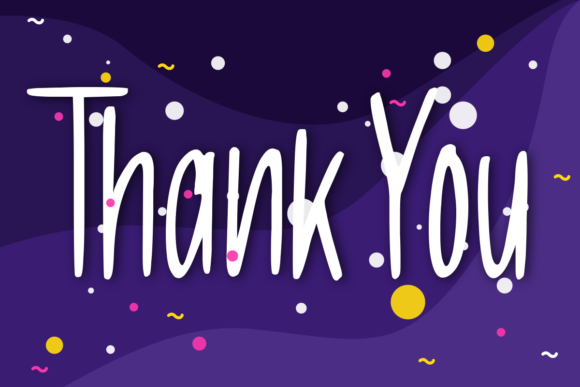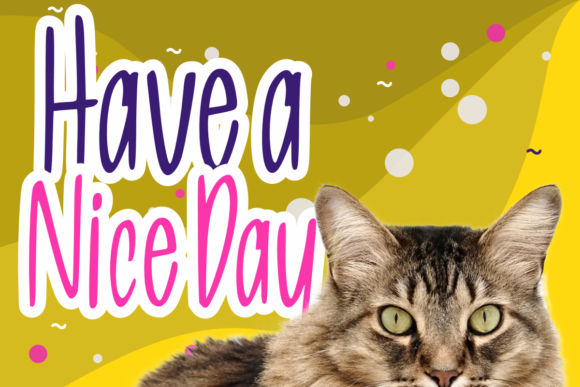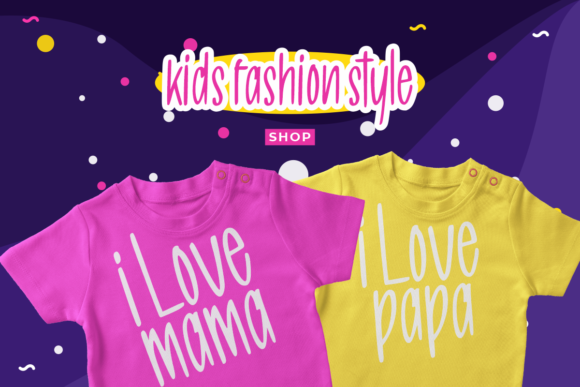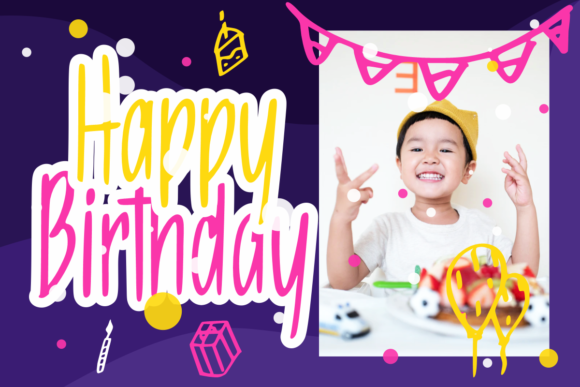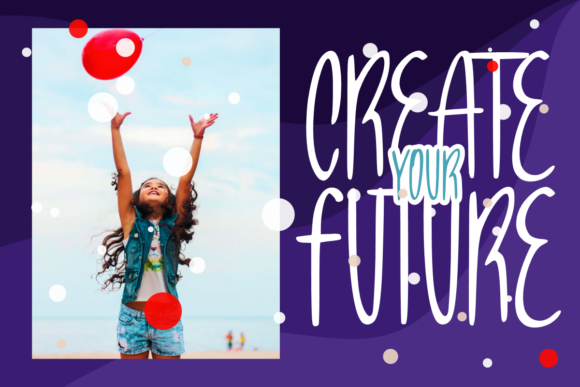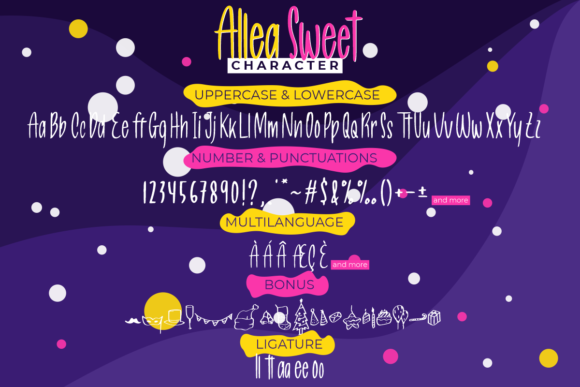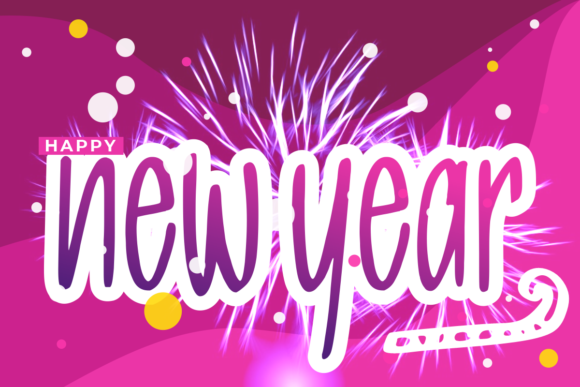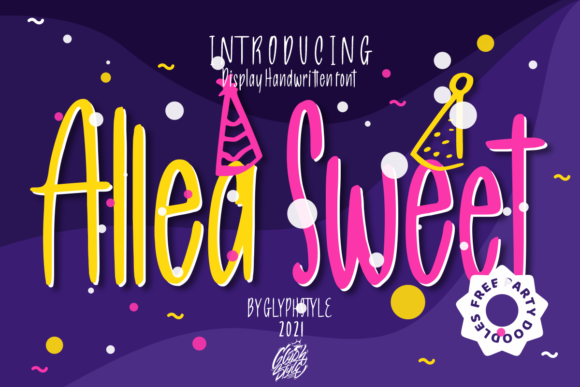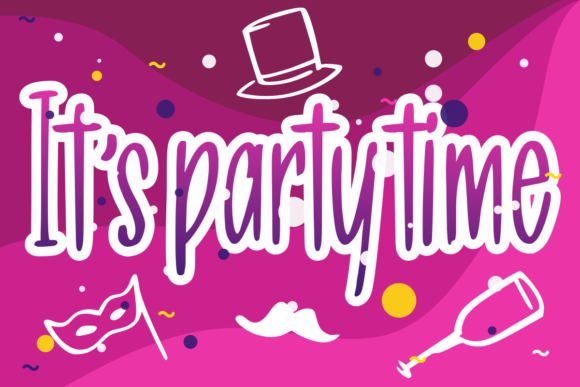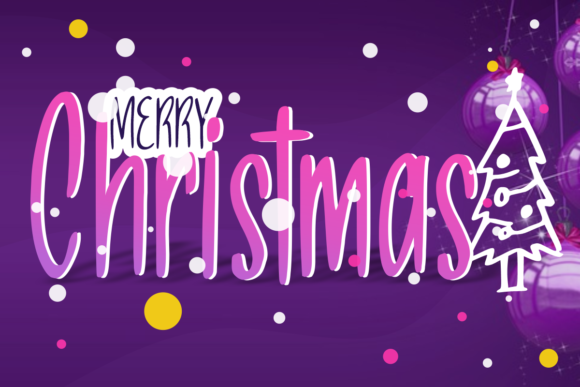
Allea Sweet
About Allea Sweet Font
Allea Sweet is a unique and cute display font. Whether you are using it for cartoon-related designs, children’s games, quotes, titles, brand names, book covers, posters, or just any creation that requires a touch of beauty, this font is a great choice.